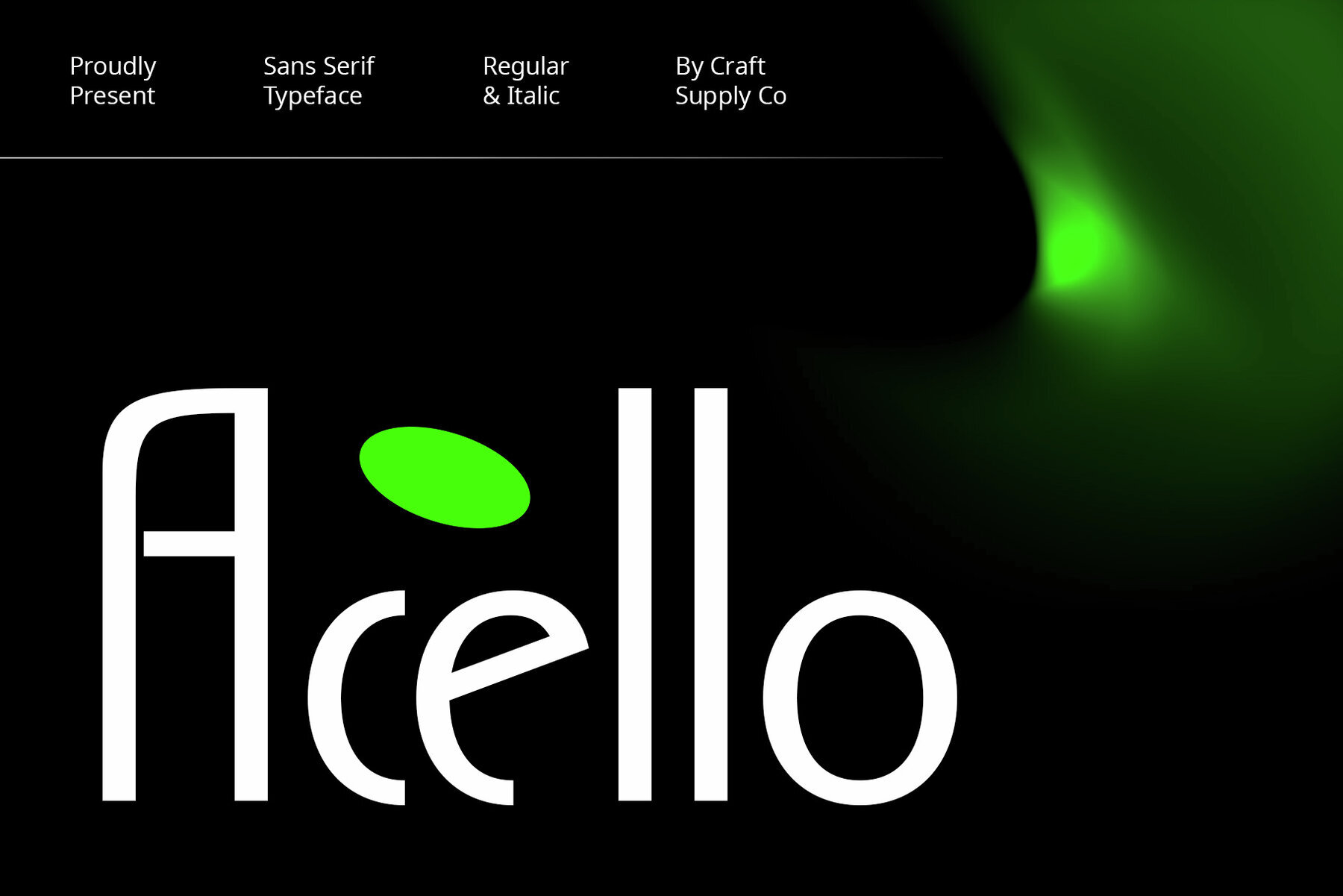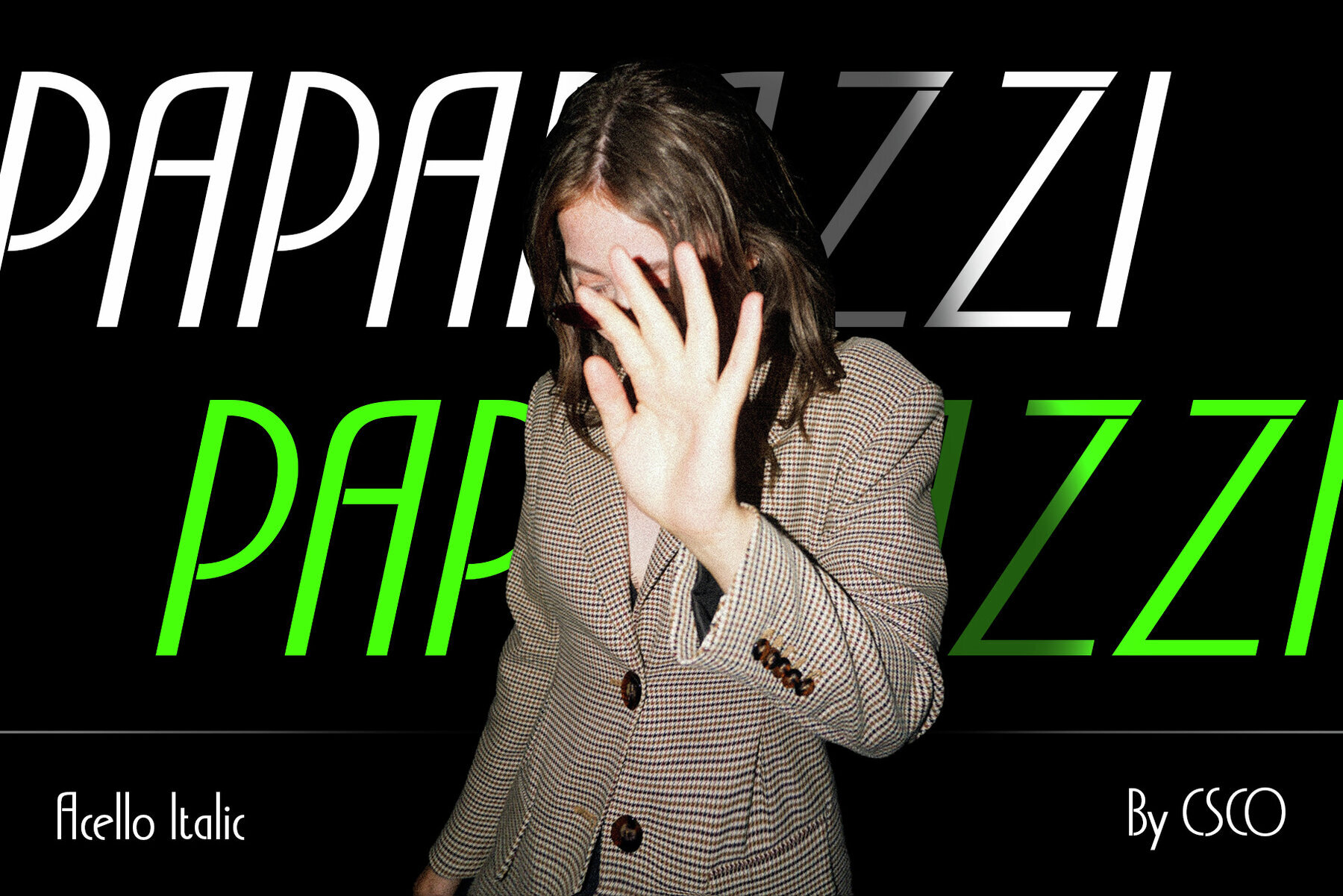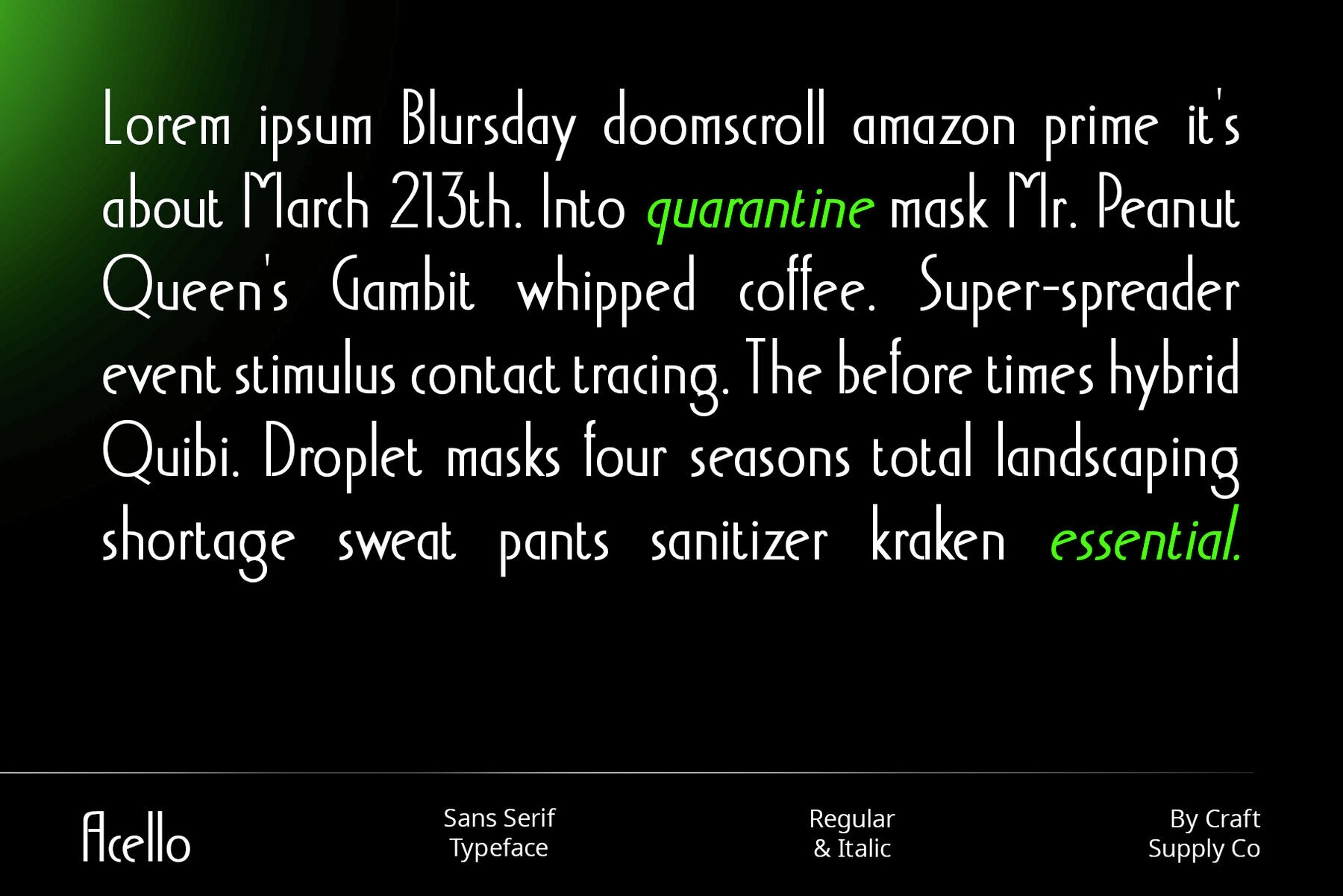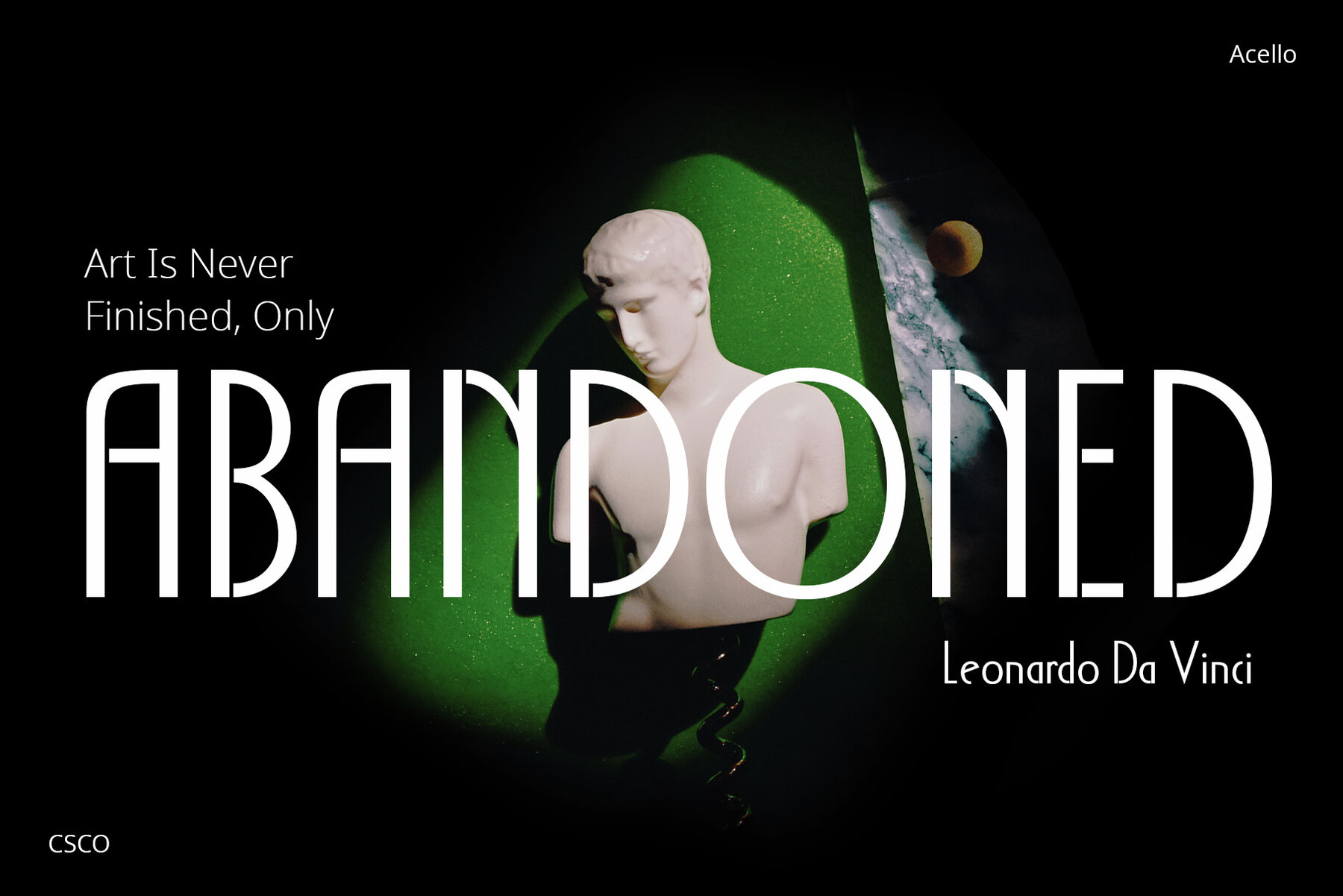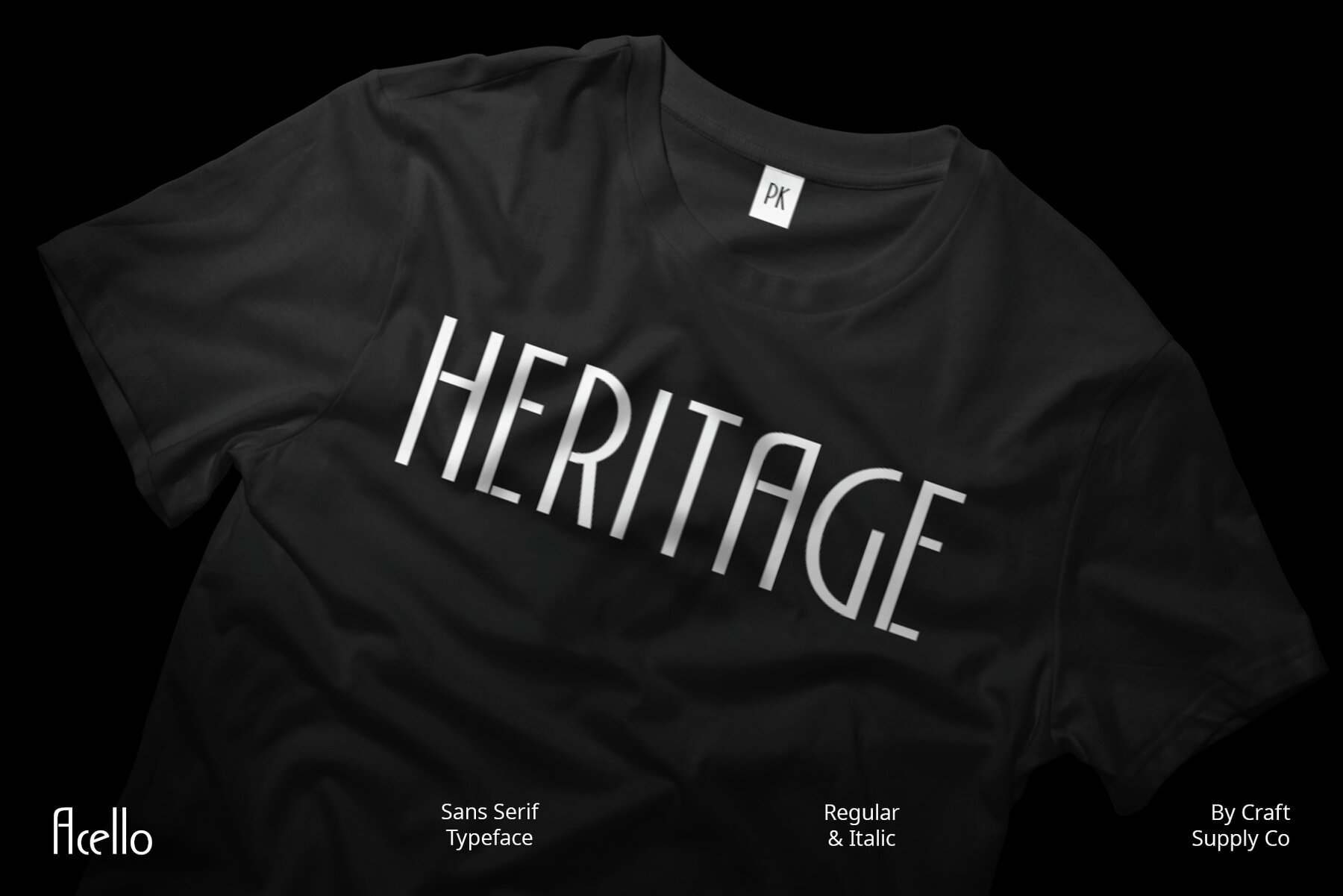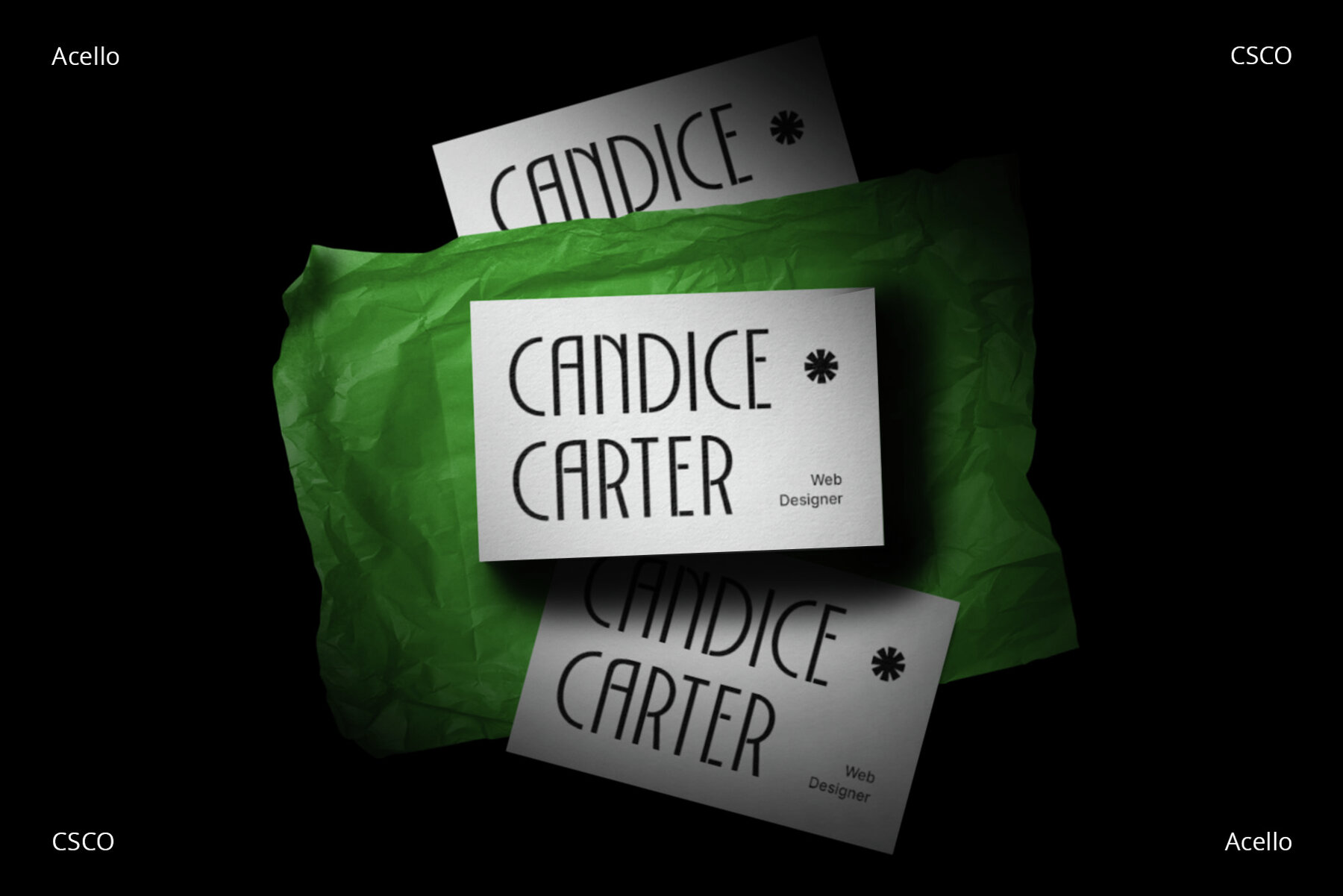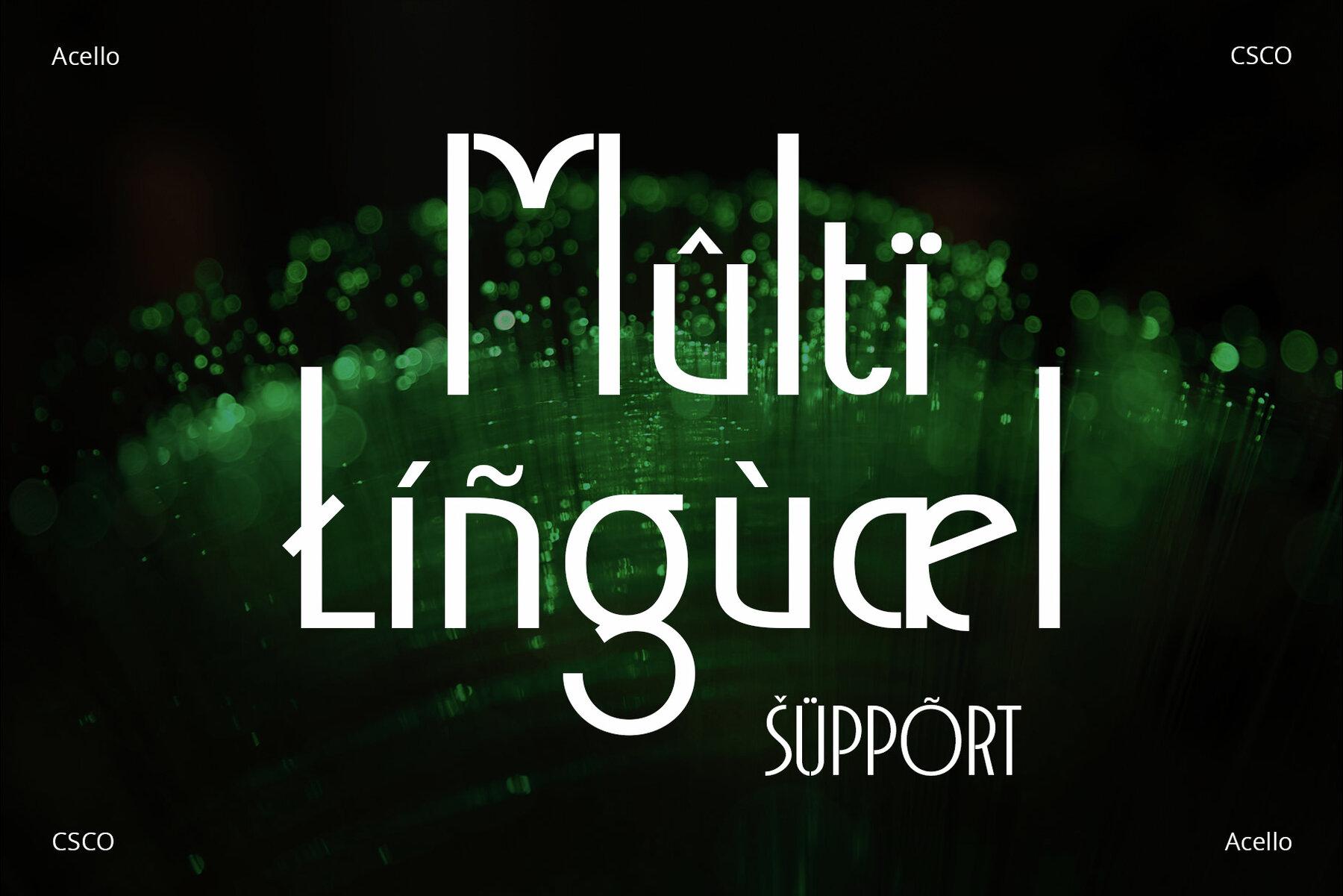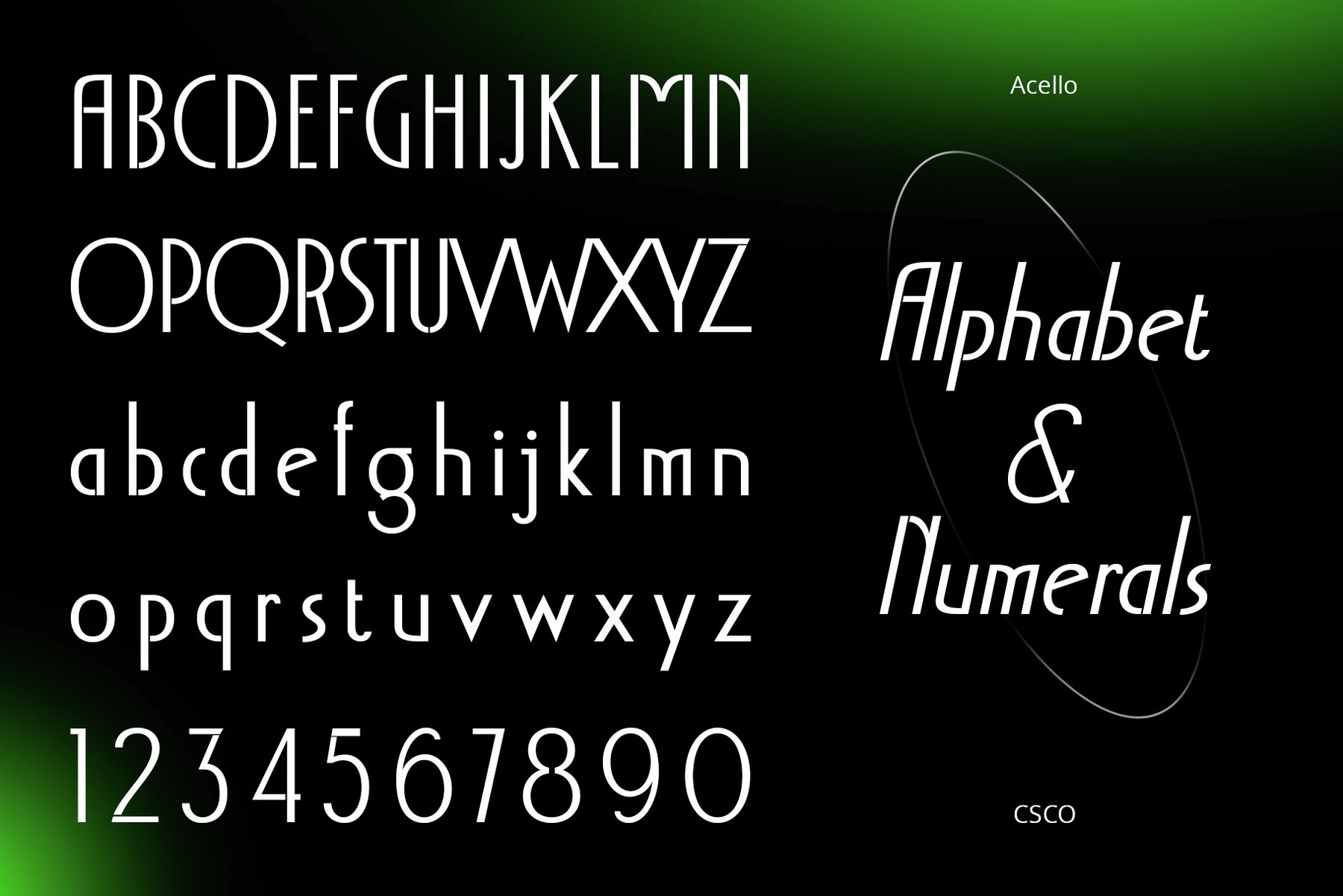
Acello Font
Acello, a geometric sans serif font, effortlessly infuses modern simplicity into your display designs. Its clean lines and sleek aesthetic captivate your audience, ensuring a contemporary appeal. Crafted for diverse display purposes, Acello seamlessly adapts, adding a touch of versatile elegance to logos, headlines, and more. Its adaptability ensures a refined look for any visual project. Prioritizing clarity, Acello's balanced proportions enhance readability. Each character is meticulously crafted for optimal legibility, ensuring your message is clear and accessible to all. Acello transcends mere communication; it resonates. Its bold presence and distinctive characters leave an indelible impression, making your content memorable and impactful. In essence, Acello emerges as a design ally for the modern communicator. With its sleek simplicity, versatile elegance, readability focus, and expressive impact, Acello stands ready to elevate your display typography. Whether it's a logo, headline, or any visual content, let Acello convey your message with contemporary charm. You can use this typeface without needing any specialized software. If you have any inquiries or need assistance, please feel free to contact us. We appreciate your support in enhancing your creative projects! Best regards, Craft Supply Co.Acello: A Modern Geometric Sans Serif
Versatile Elegance
Readability Redefined
Expressive Impact
Conclusion